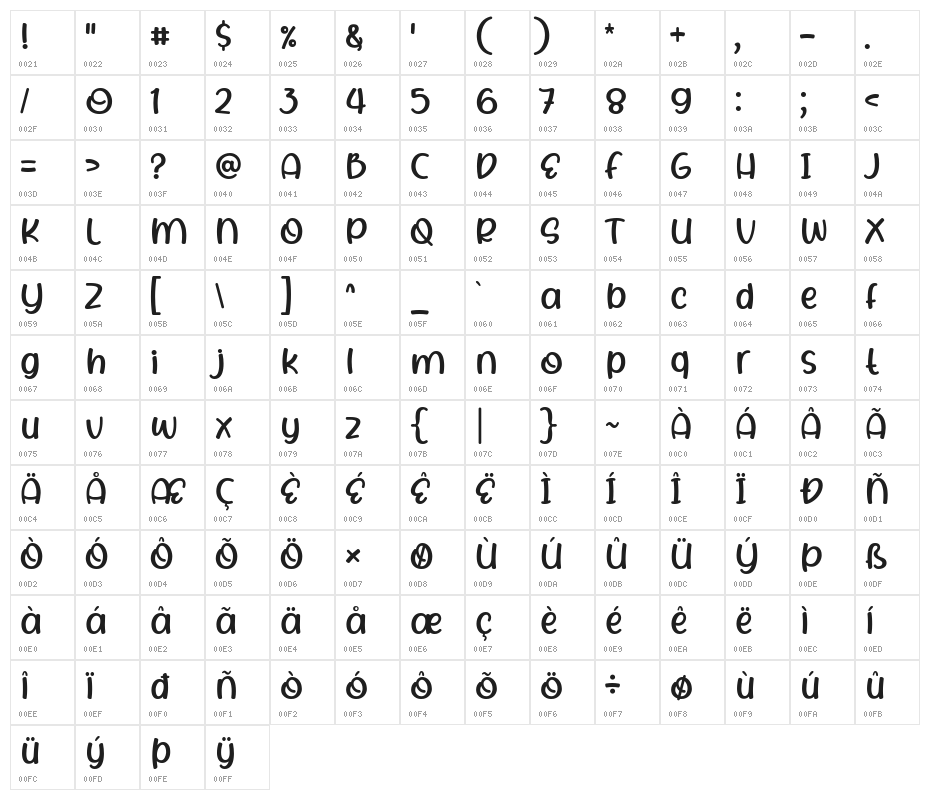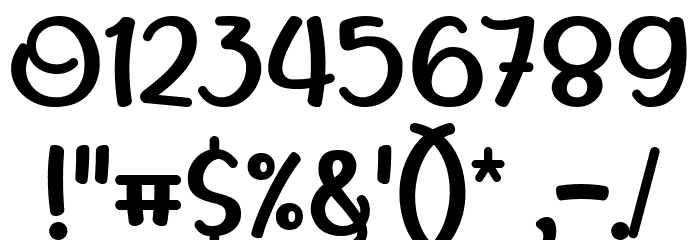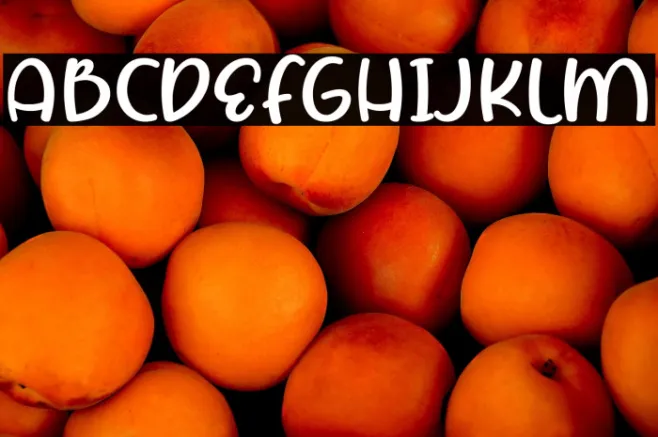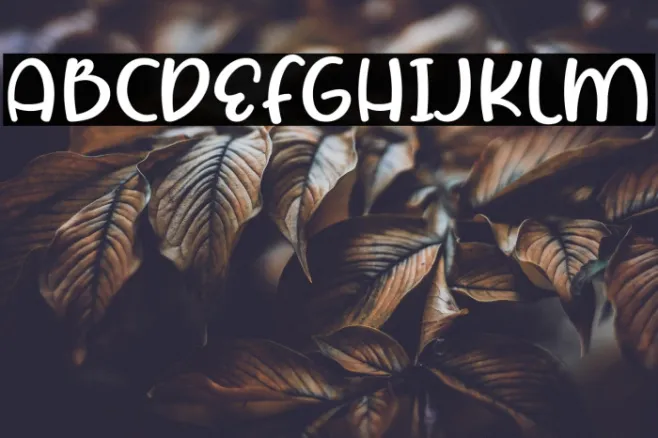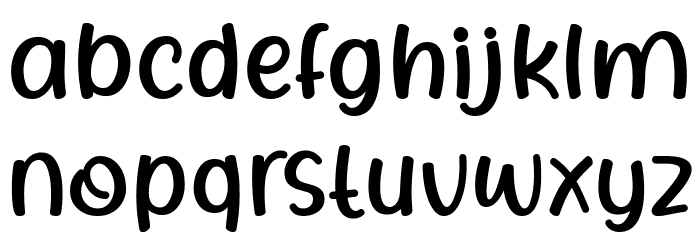
Rhigen Font
Rhigen Description
This playful and rounded font exudes a friendly and approachable vibe, characterized by its smooth curves and consistent stroke width. The letters are slightly tilted, adding a whimsical touch to the overall appearance. The uppercase and lowercase letters maintain a uniform style, with the lowercase letters mirroring the playful nature of the uppercase. The numerals are bold and clear, ensuring readability. Special characters are creatively designed, maintaining the font's cohesive style. This font is perfect for projects that require a fun and engaging look.